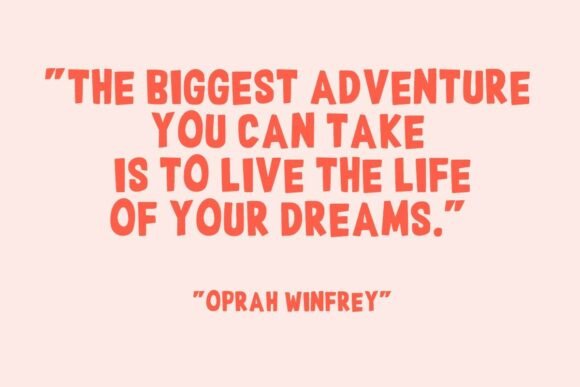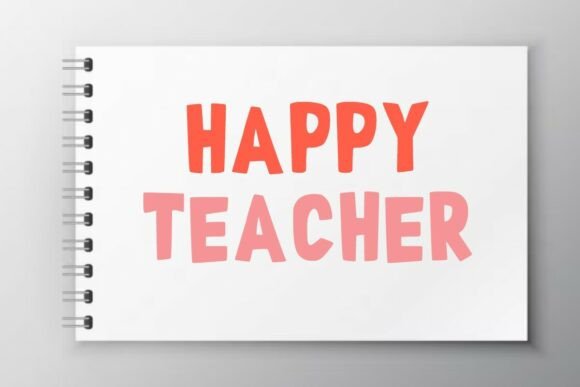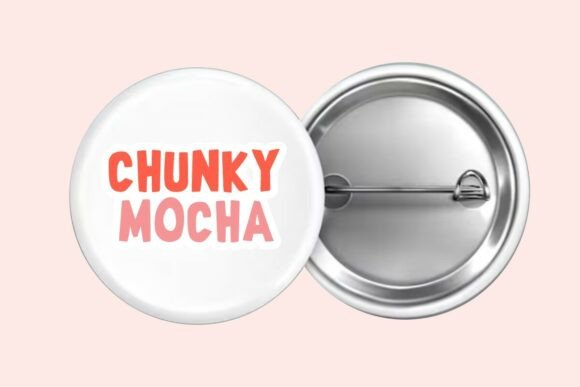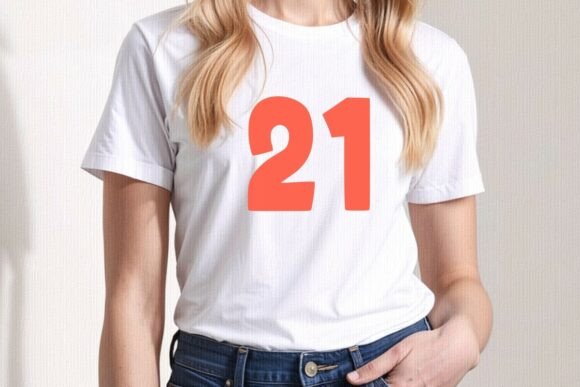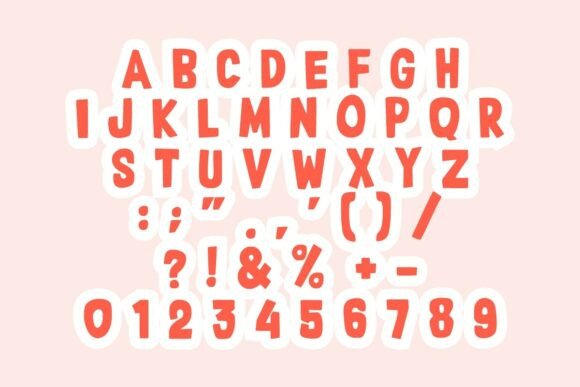
Introducing Chunky Mocha: The Ultimate Font for Playful Designs
Are you tired of using the same old fonts for your designs? Look no further than Chunky Mocha, a cute and cartoon bold font that’s sure to add a touch of playfulness to your creations. With its soft curves and bold appearance, Chunky Mocha is perfect for creating eye-catching headlines, posters, social media graphics, and branding that stands out from the crowd.
The Characteristics of Chunky Mocha
Chunky Mocha is a unique font that boasts a range of characteristics that make it perfect for designers and crafters. Some of its key features include:
- Soft Curves: Chunky Mocha’s soft curves give it a friendly and approachable feel, making it perfect for designs that need to convey a sense of warmth and approachability.
- Bold Appearance: The font’s bold appearance ensures that your designs will stand out from the crowd, even at a glance.
- Playful Vibe: Chunky Mocha’s playful vibe makes it perfect for designs that need to convey a sense of fun and creativity.
Uses for Chunky Mocha
Chunky Mocha is a versatile font that can be used in a wide range of design applications, including:
- Headlines: Use Chunky Mocha to create eye-catching headlines that grab attention and draw readers in.
- Posters: Create bold and playful posters that showcase your brand’s personality with Chunky Mocha.
- Social Media Graphics: Use Chunky Mocha to add a touch of playfulness to your social media graphics, such as Instagram posts and Facebook headers.
- Branding: Incorporate Chunky Mocha into your brand’s visual identity to convey a sense of fun and approachability.
Why Designers and Crafters Love Chunky Mocha
Designers and crafters love Chunky Mocha for a range of reasons, including:
- Easy to Read: Despite its bold appearance, Chunky Mocha is easy to read, even at small sizes.
- Versatile: Chunky Mocha can be used in a wide range of design applications, from digital designs to print materials.
- Fun and Playful: Chunky Mocha’s playful vibe makes it perfect for designers and crafters who want to add a touch of personality to their designs.
How to Use Chunky Mocha in Your Designs
Using Chunky Mocha in your designs is easy. Here are a few tips to get you started:
- Pair with Other Fonts: Pair Chunky Mocha with other fonts to create a unique and visually appealing design.
- Use it Boldly: Don’t be afraid to use Chunky Mocha boldly and prominently in your designs.
Chunky Mocha is a delightful font that’s perfect for designers and crafters who want to add a touch of playfulness to their designs. With its soft curves, bold appearance, and playful vibe, Chunky Mocha is sure to become a go-to font for anyone looking to create eye-catching headlines, posters, social media graphics, and branding. So why not give Chunky Mocha a try and see the difference it can make in your designs?